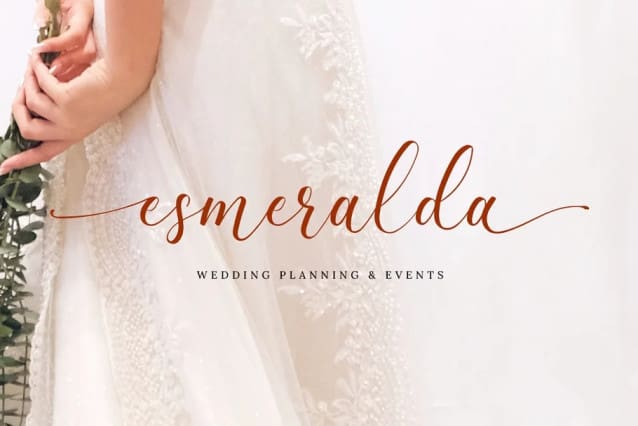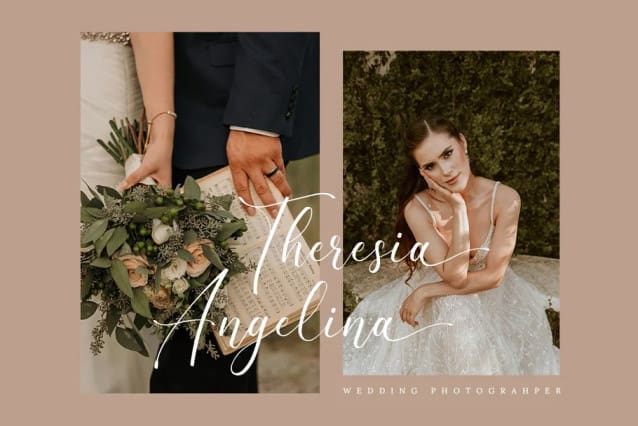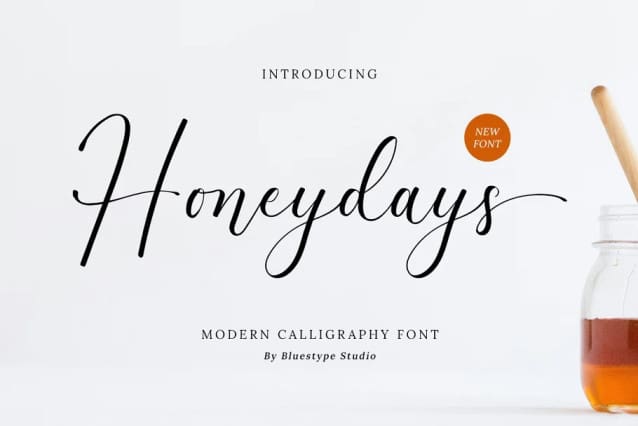
Honeydays Font
Honeydays Font is a stunning calligraphy font with a natural touch and modern style. Use it for your most creative projects and see how it brings it to life. Get inspired by its modern simplicity!
This font is suitable for use on weddings, business cards, branding, logo font, magazines, quotes, social media post, fashion design, watermarks, invitations, signatures.